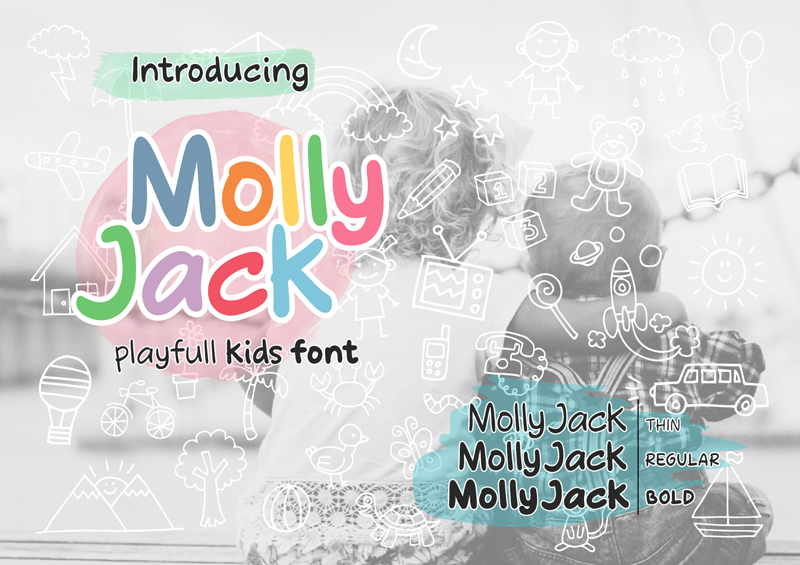
Preview and download Molly Jack Font. Created by Ketapel Creative in Script Handwritten styles with Free for personal use license.
Introducing! Molly Jack is an awesome, playful, and unique comic font (Thin, Regular, Bold)lots of personality. Fall in love with its playful look & feel! Perfect for branding, logos, label, brochure, children�s apparel, t-shirt, post cards, packaging design, social media, poster, games, stationery, etc. Includes in uppercase, lowercase, standard numbers & punctuation, multilingual support. *This font is demo version free for personal use. Please visit https://www.creativefabrica.com/designer/ketapelcreative/ref/237095 to purchase commercial license and more other products. download & enjoy !! *Contact me : ketapelcreative@gmail.com Thanks for downloading this fonts. Best Regards |